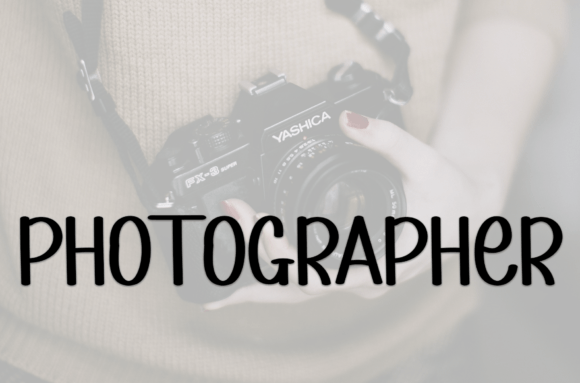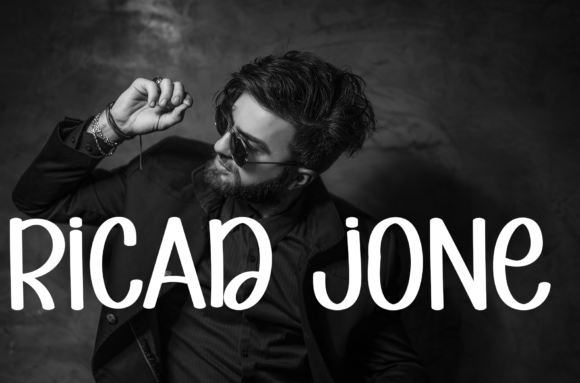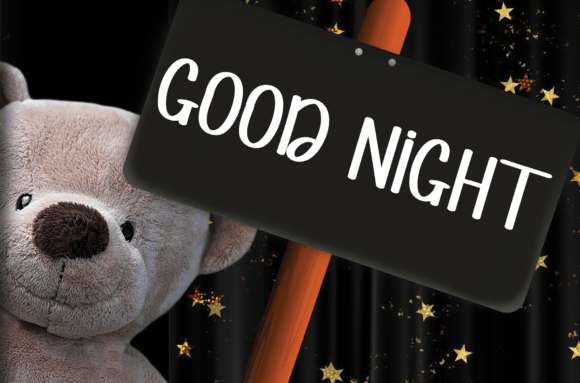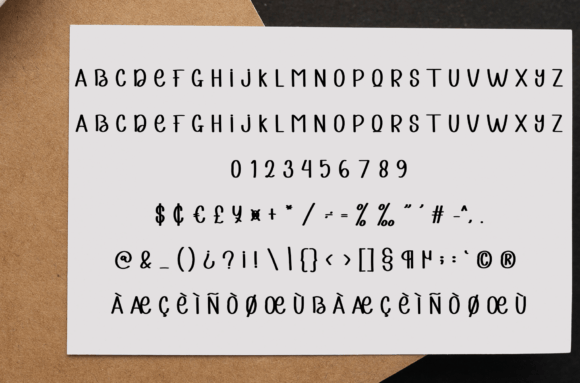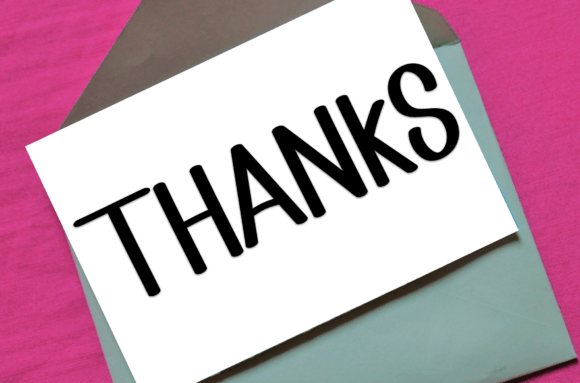
Cry Alone Font: The Sweet and Friendly Handwritten Font for Your Creative Projects
Are you a designer or crafter looking for a font that can add a lovely touch to your creative projects? Look no further than the Cry Alone font! This sweet and friendly handwritten font is perfect for writing wedding invitations, cards, or any other design that needs a personal and relaxed feel. In this article, we’ll explore the features and benefits of the Cry Alone font, and show you how to use it to take your designs to the next level.
What is Cry Alone Font?
Cry Alone is a beautiful handwritten font that exudes warmth and friendliness. Its fun and relaxed vibe makes it perfect for a wide range of creative projects, from wedding invitations and cards to social media graphics and blog posts. The font’s sweet and gentle appearance is sure to capture the hearts of your audience and leave a lasting impression.
Key Features of Cry Alone Font
- Handwritten appearance: Cry Alone font has a natural, handwritten look that adds a personal touch to your designs.
- Sweet and friendly vibe: The font’s gentle and warm appearance makes it perfect for projects that require a friendly and approachable tone.
- Fun and relaxed: Cry Alone font is ideal for designs that need a playful and carefree feel.
- Versatile: This font can be used for a wide range of creative projects, from wedding invitations and cards to social media graphics and blog posts.
Benefits of Using Cry Alone Font
So why should you choose Cry Alone font for your creative projects? Here are just a few benefits of using this beautiful font:
- Adds a personal touch: Cry Alone font’s handwritten appearance adds a personal touch to your designs, making them more relatable and engaging.
- Perfect for wedding and event designs: The font’s sweet and friendly vibe makes it perfect for wedding invitations, cards, and other event designs.
- Easy to read: Cry Alone font is clear and easy to read, making it perfect for body text and headings.
- Customizable: You can customize the font to fit your brand’s style and tone, making it perfect for branding and marketing projects.
How to Use Cry Alone Font in Your Designs
Using Cry Alone font in your designs is easy! Here are a few tips to get you started:
- Pair it with other fonts: Cry Alone font pairs well with other fonts, such as sans-serif fonts like Arial or Helvetica.
- Use it for headings and body text: The font is clear and easy to read, making it perfect for both headings and body text.
- Add a personal touch: Use Cry Alone font to add a personal touch to your designs, such as in wedding invitations or cards.
- Experiment with colors and textures: Try experimenting with different colors and textures to give your designs a unique and creative look.
In conclusion, Cry Alone font is a sweet and friendly handwritten font that’s perfect for designers and crafters looking to add a lovely touch to their creative projects. With its fun and relaxed vibe, versatile design, and easy-to-read appearance, this font is sure to capture the hearts of your audience and leave a lasting impression. So why not give Cry Alone font a try today and see how it can elevate your designs to the next level?